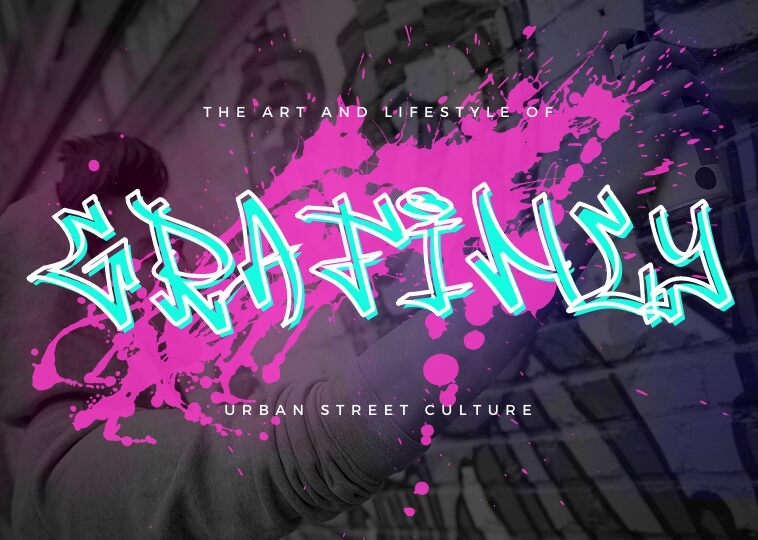
Grafincy is a free brush graffiti font shared with us by Creaditive. It will help you capture all the roughness and texture of handwriting in your next project and reflect it in your personal branding as well as professional projects. You can use this brush graffiti font with a simple background that allows Grafincy to shine brightly or with contrasting images that create interesting effects, like this grunge-themed banner or logo.